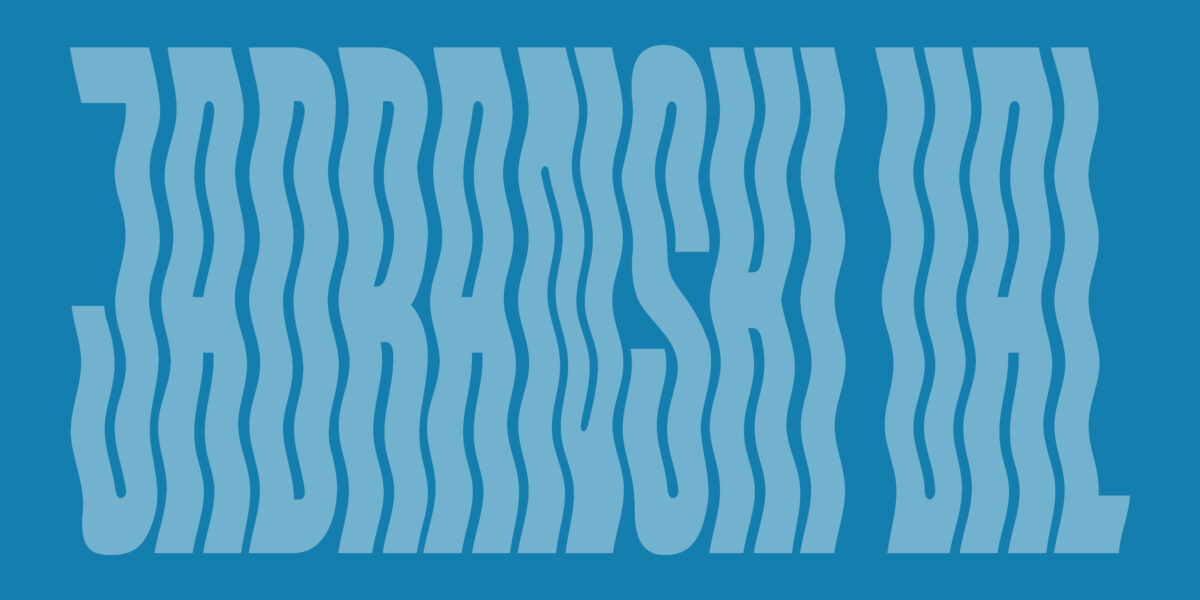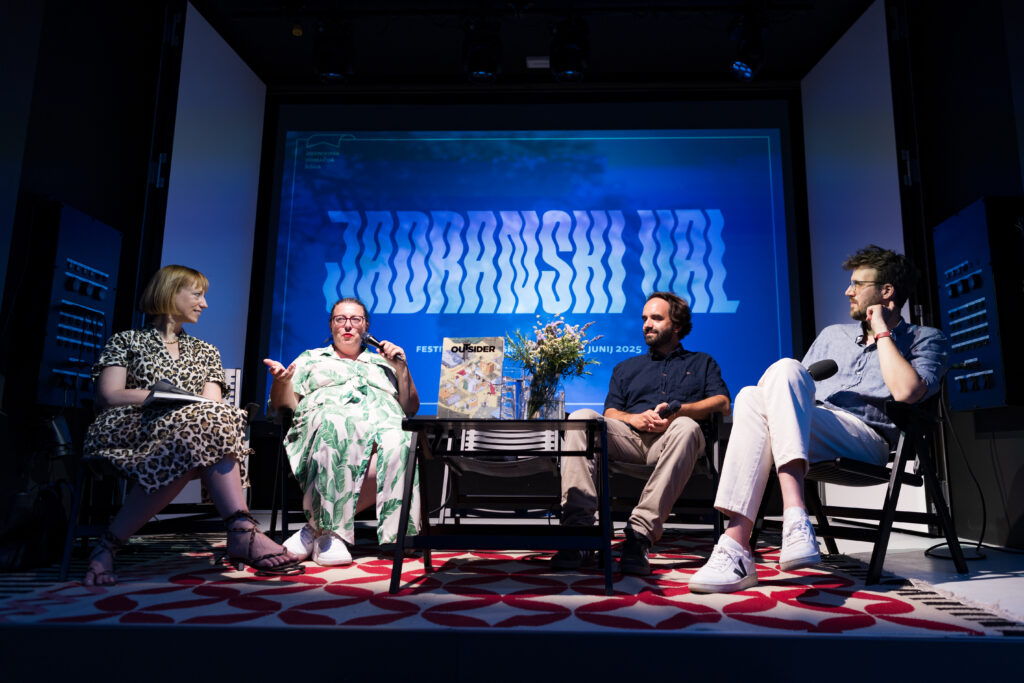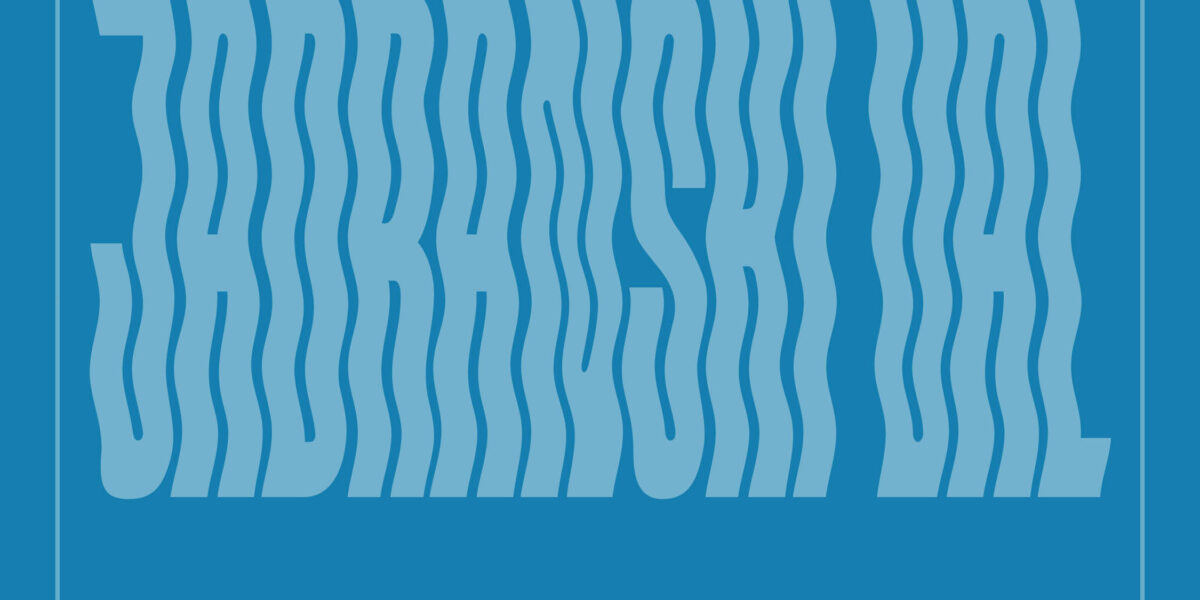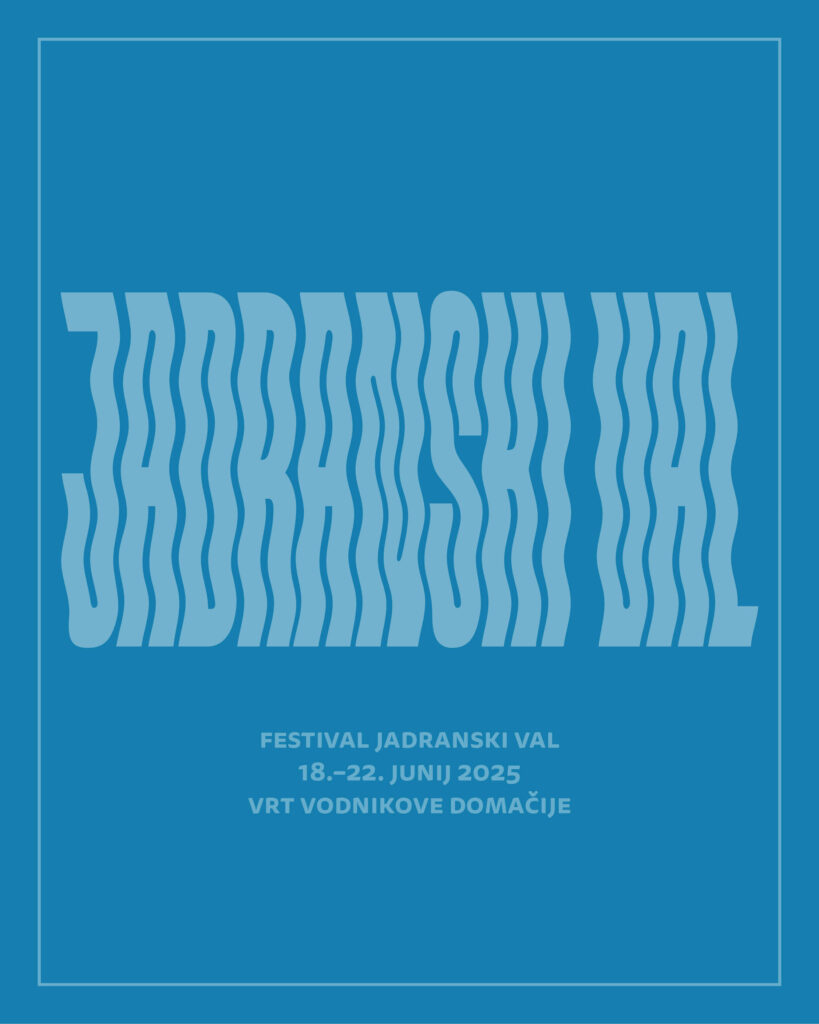
Lettering for Jadranski val festival Lettering for visual identity of literature festival Jadranski val – Adriatic wave, organised by Vodnikova domačija.The letters are moving like the gentle waves characteristic of the Adriatic coast, lettering is variable. Year: 2025